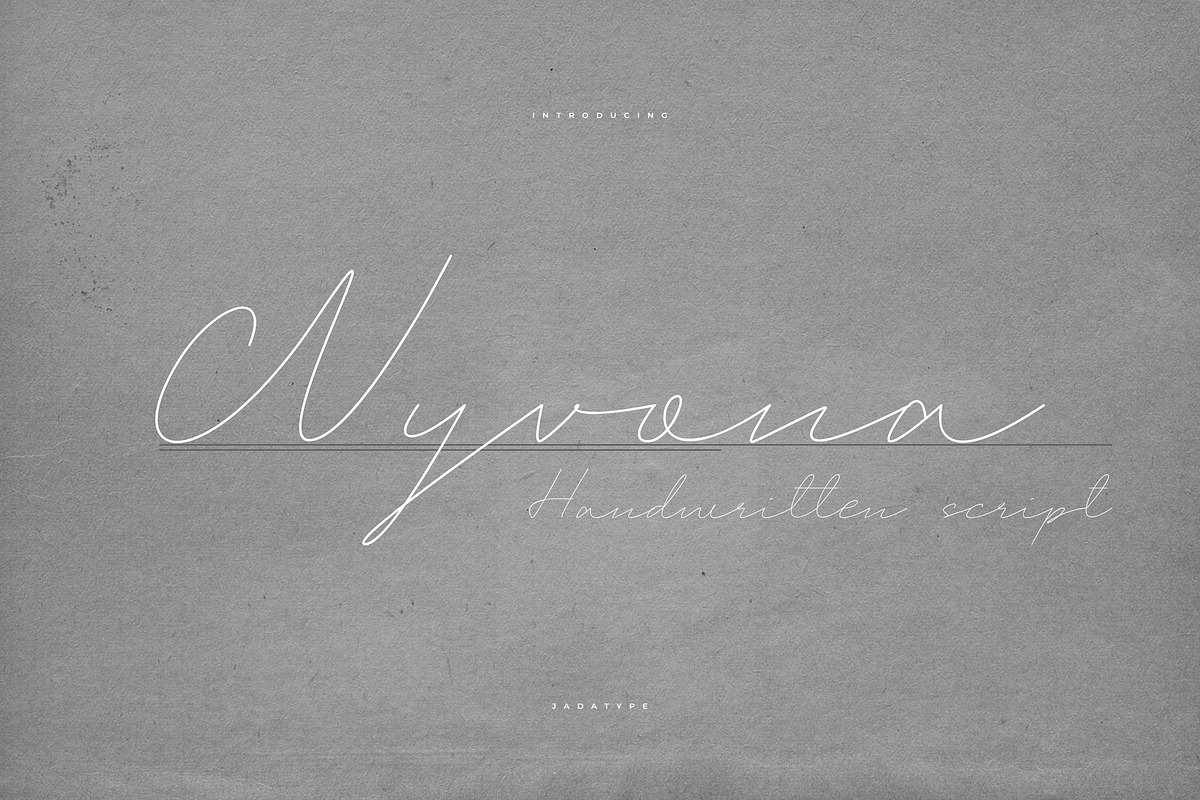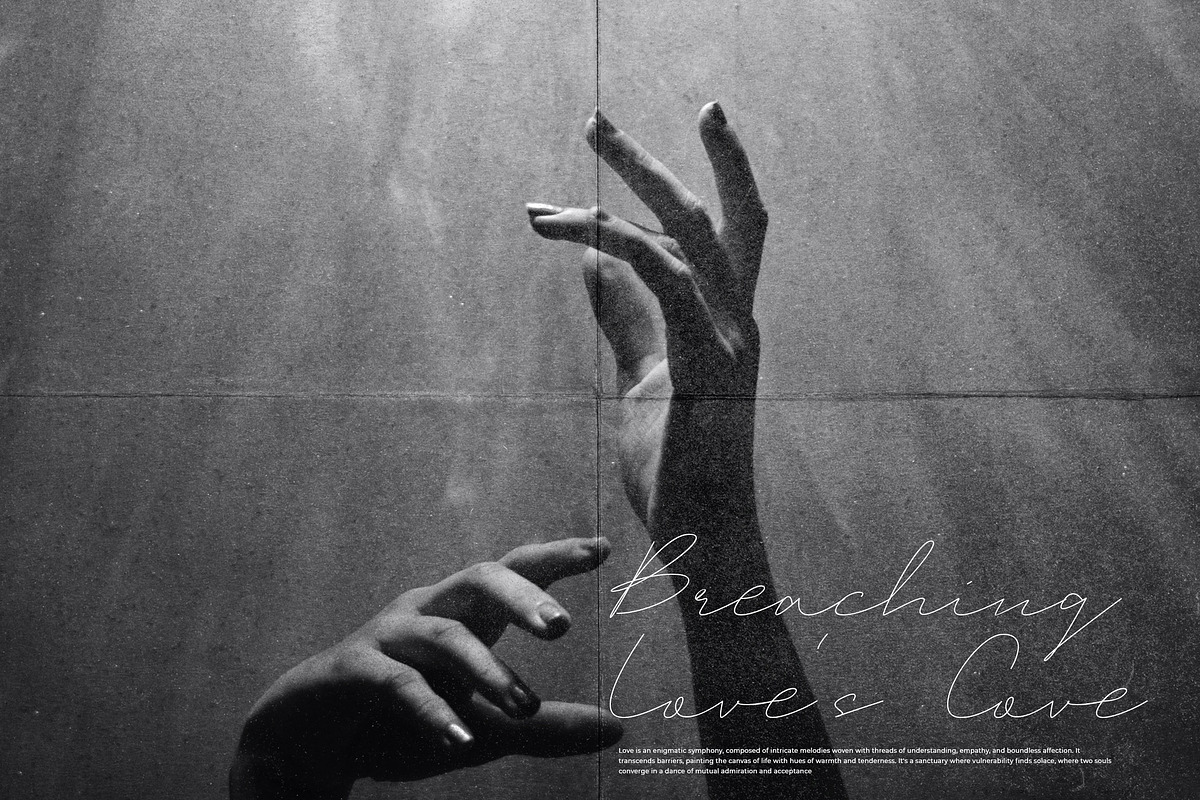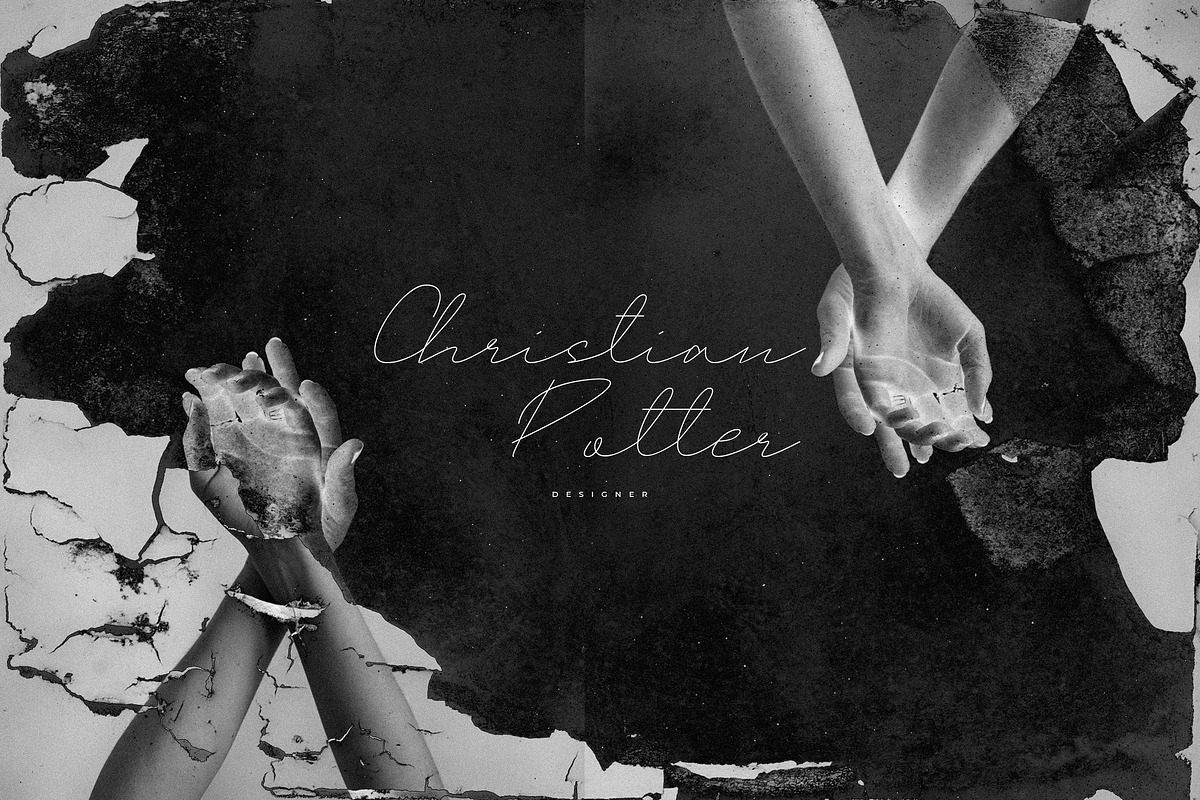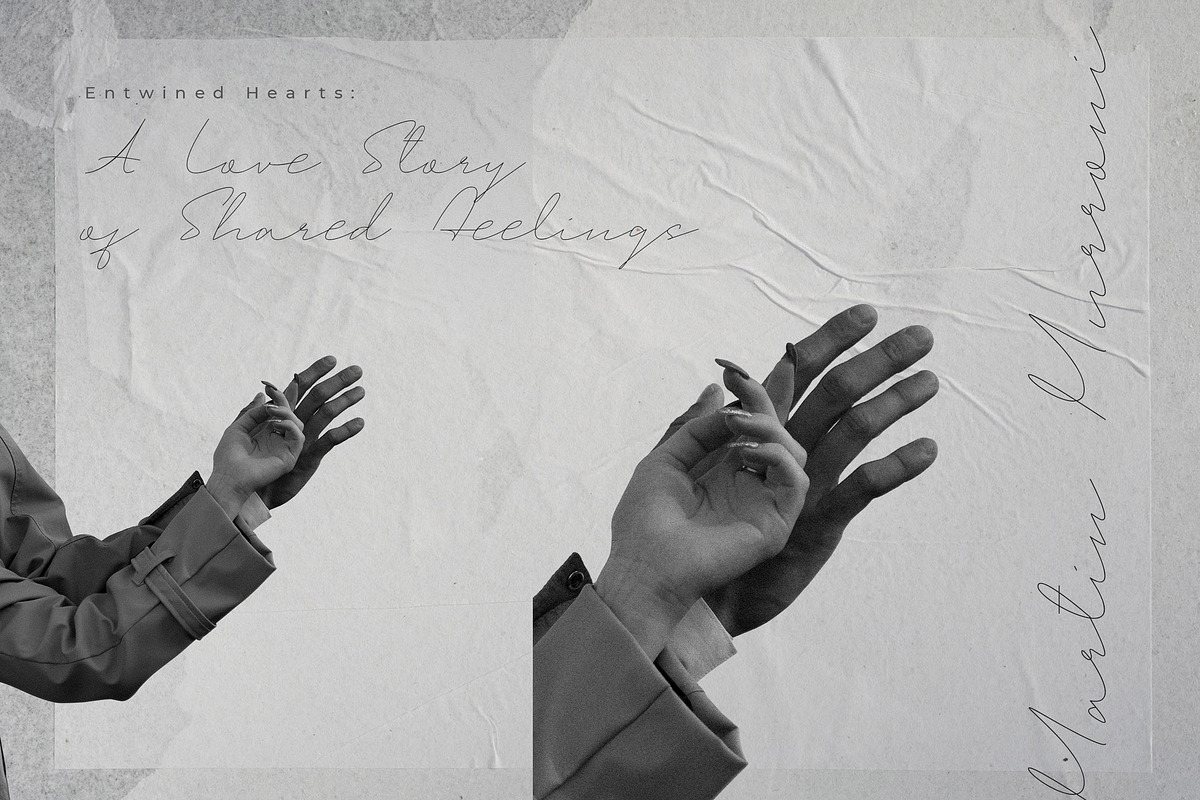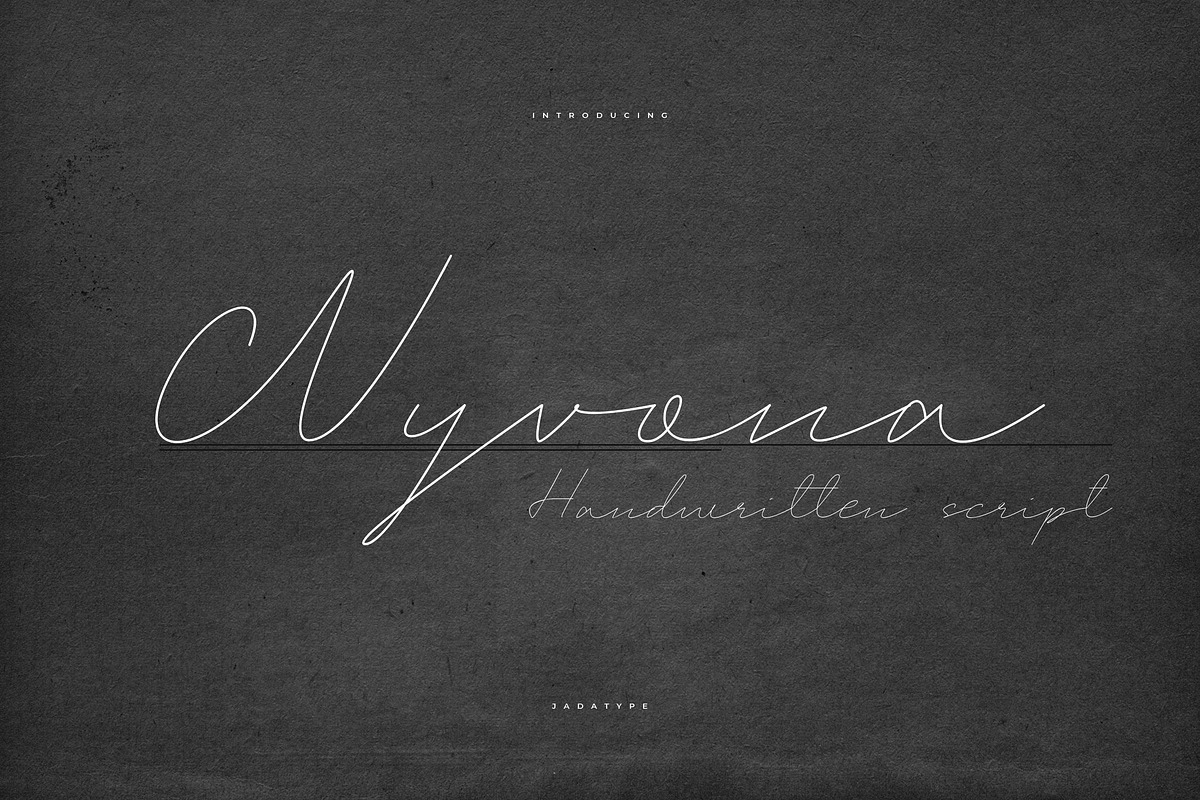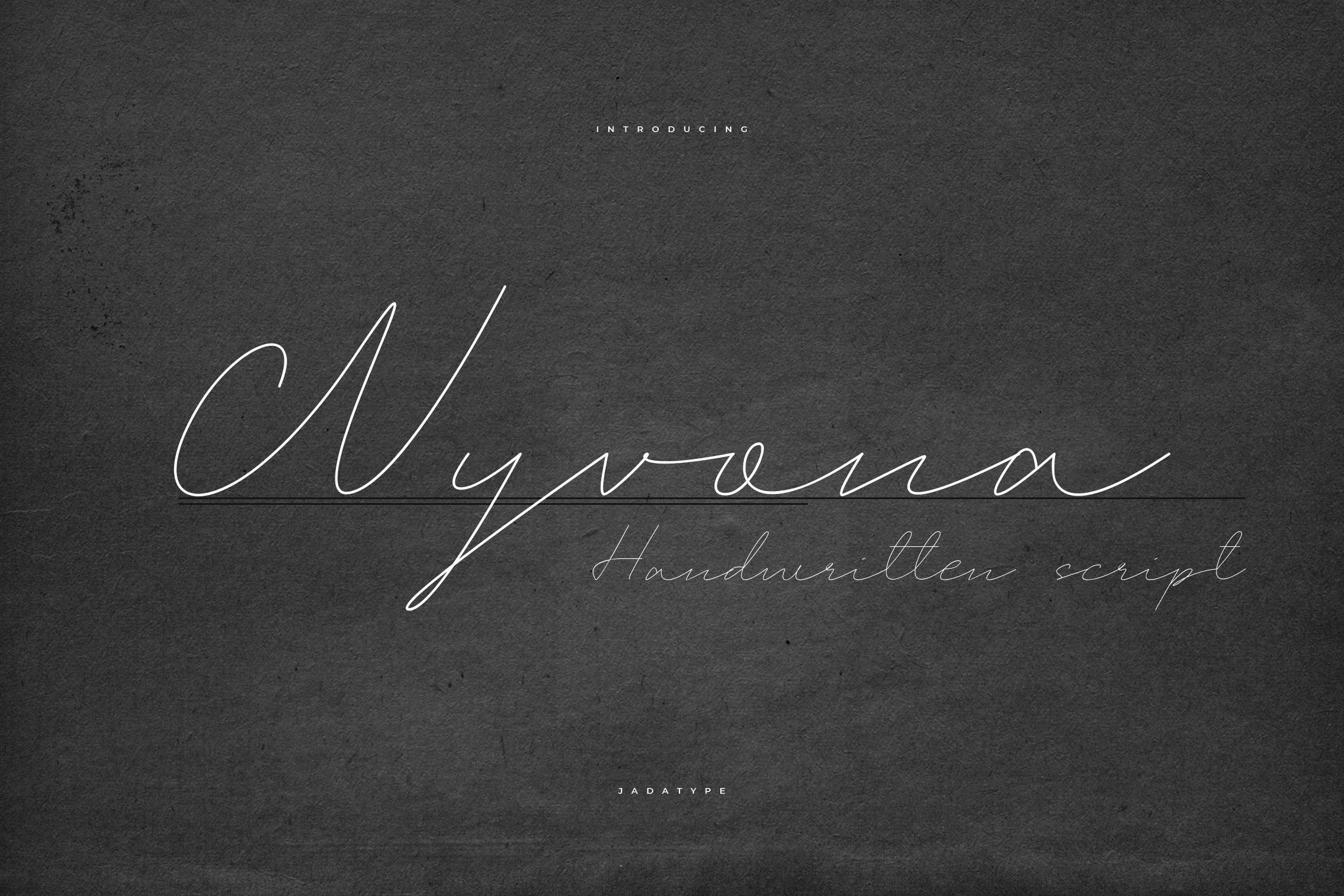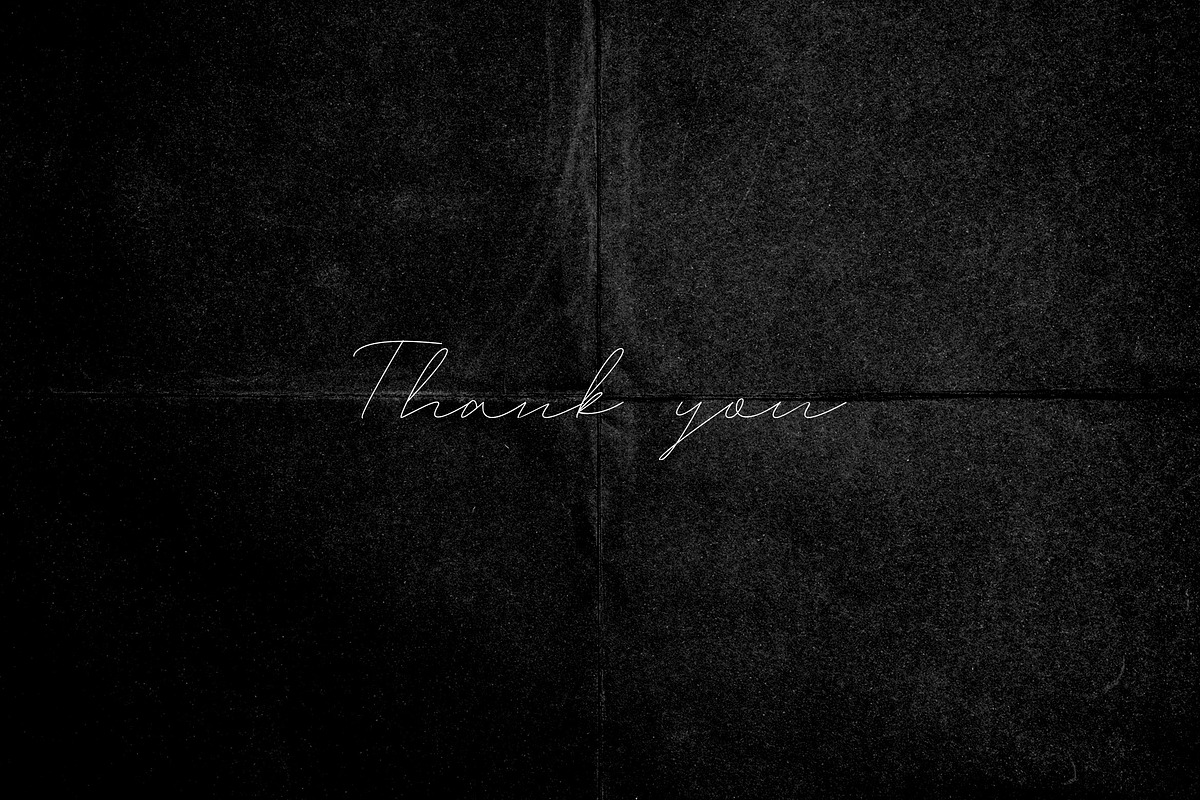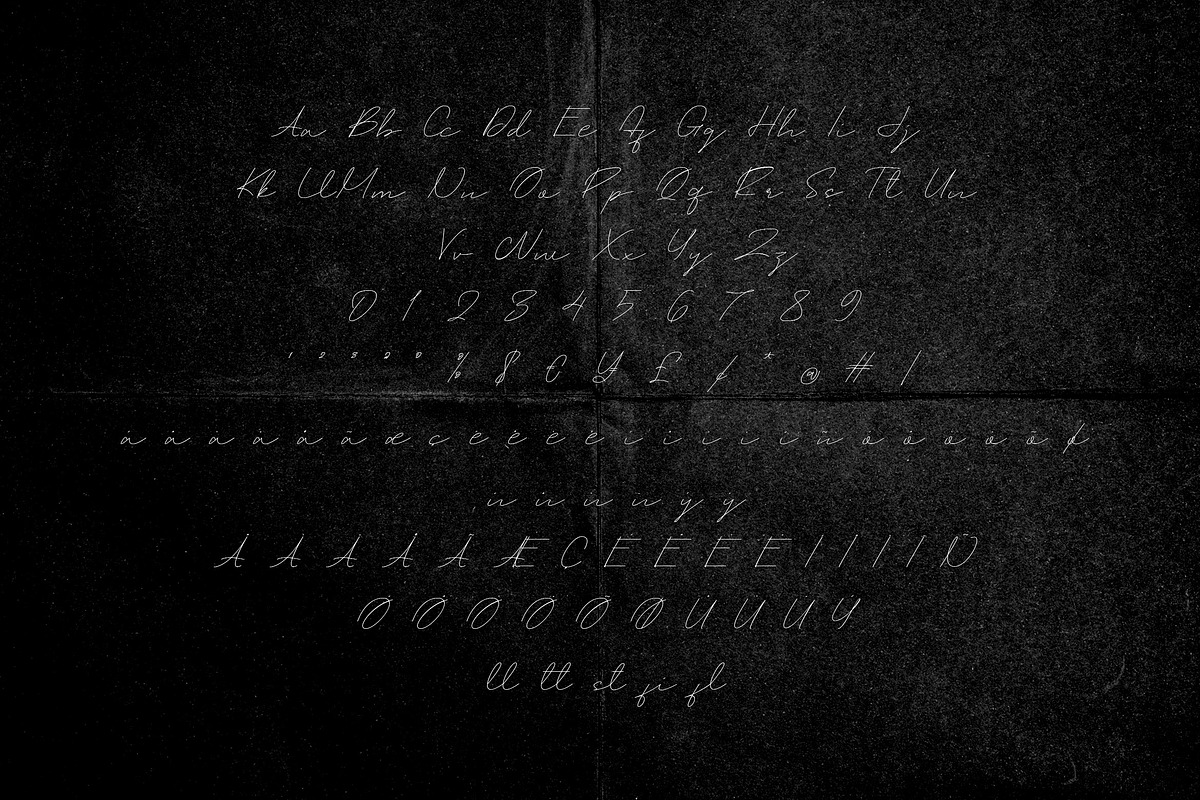
Wyvona Font | Handwritten
Wyvona is a script font that comes with a handwritten style. suitable for product, branding, social media, notes and so on. contains standard English letters, numbers, punctuation, and several accents that support multilingualism.